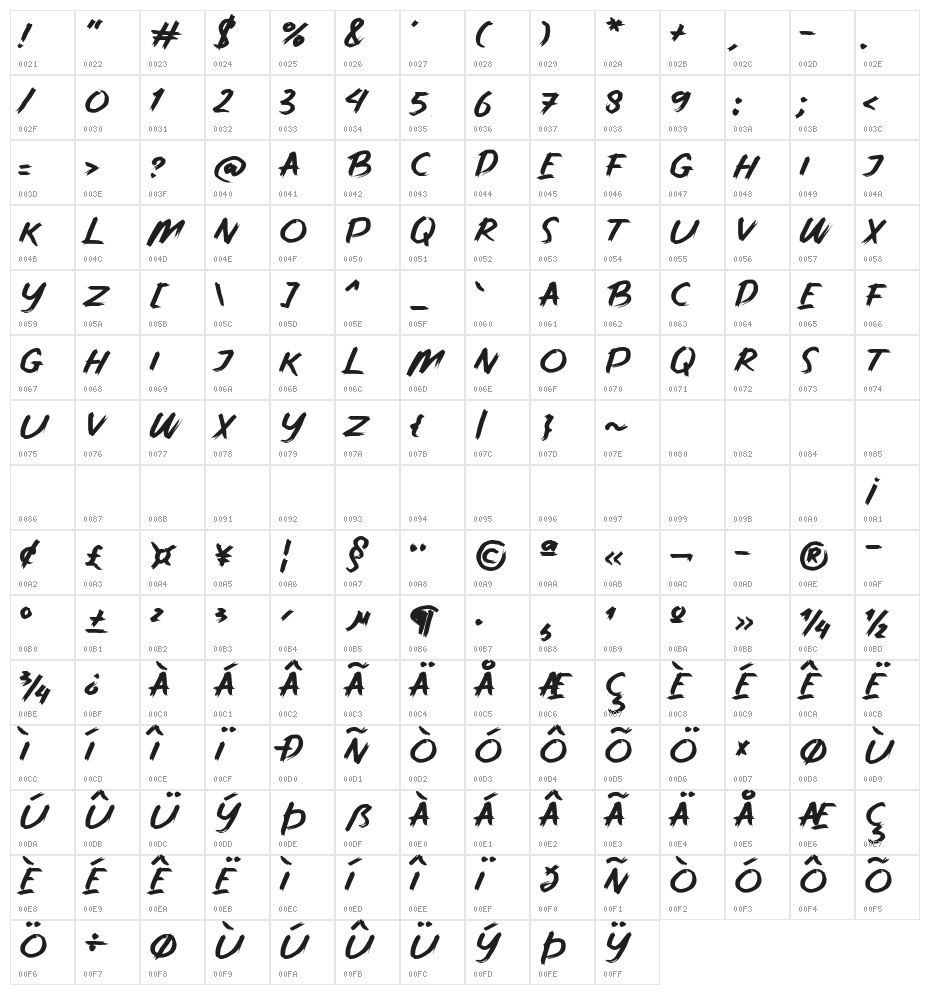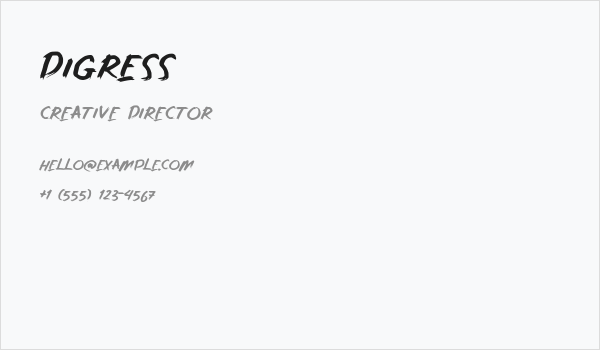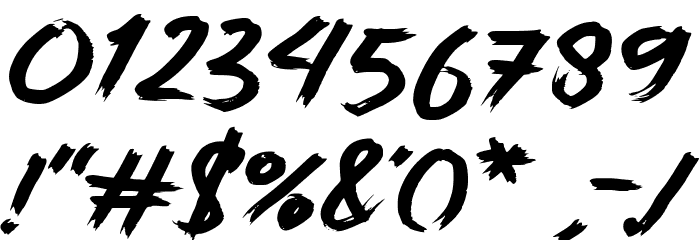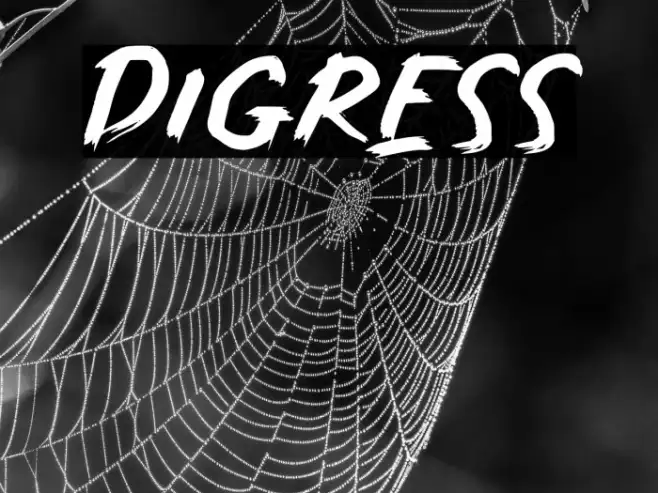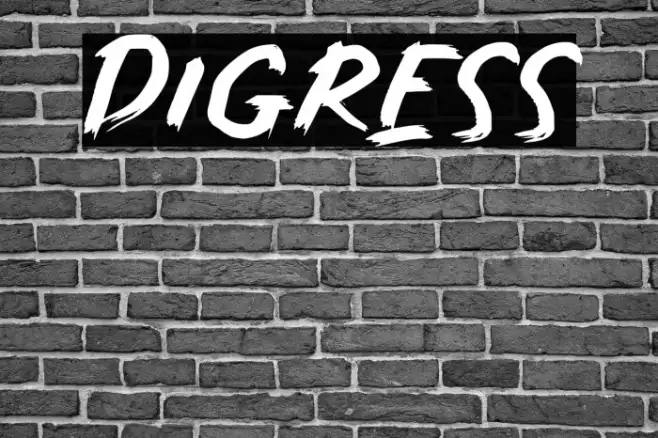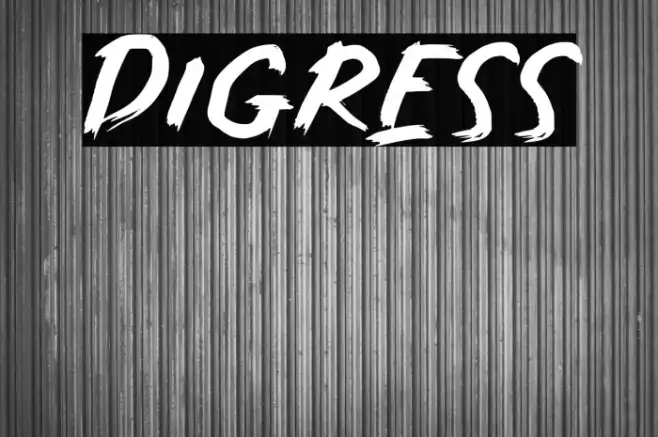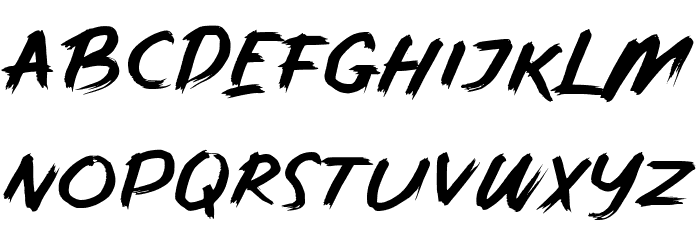
Digress Font
Digress Description
This font exudes a dynamic and energetic style, characterized by its bold and brush-like strokes. The letters have a hand-painted appearance, giving them a raw and expressive quality. The uppercase and lowercase letters maintain a consistent style, with sharp angles and a slightly irregular baseline that adds to the font's lively personality. The numbers and special characters follow the same aesthetic, ensuring a cohesive look across all text. This font is ideal for projects that require a bold statement and a touch of artistic flair.
| Proposed Projects | Ideal for posters, album covers, branding, and any design requiring a bold, artistic touch. |